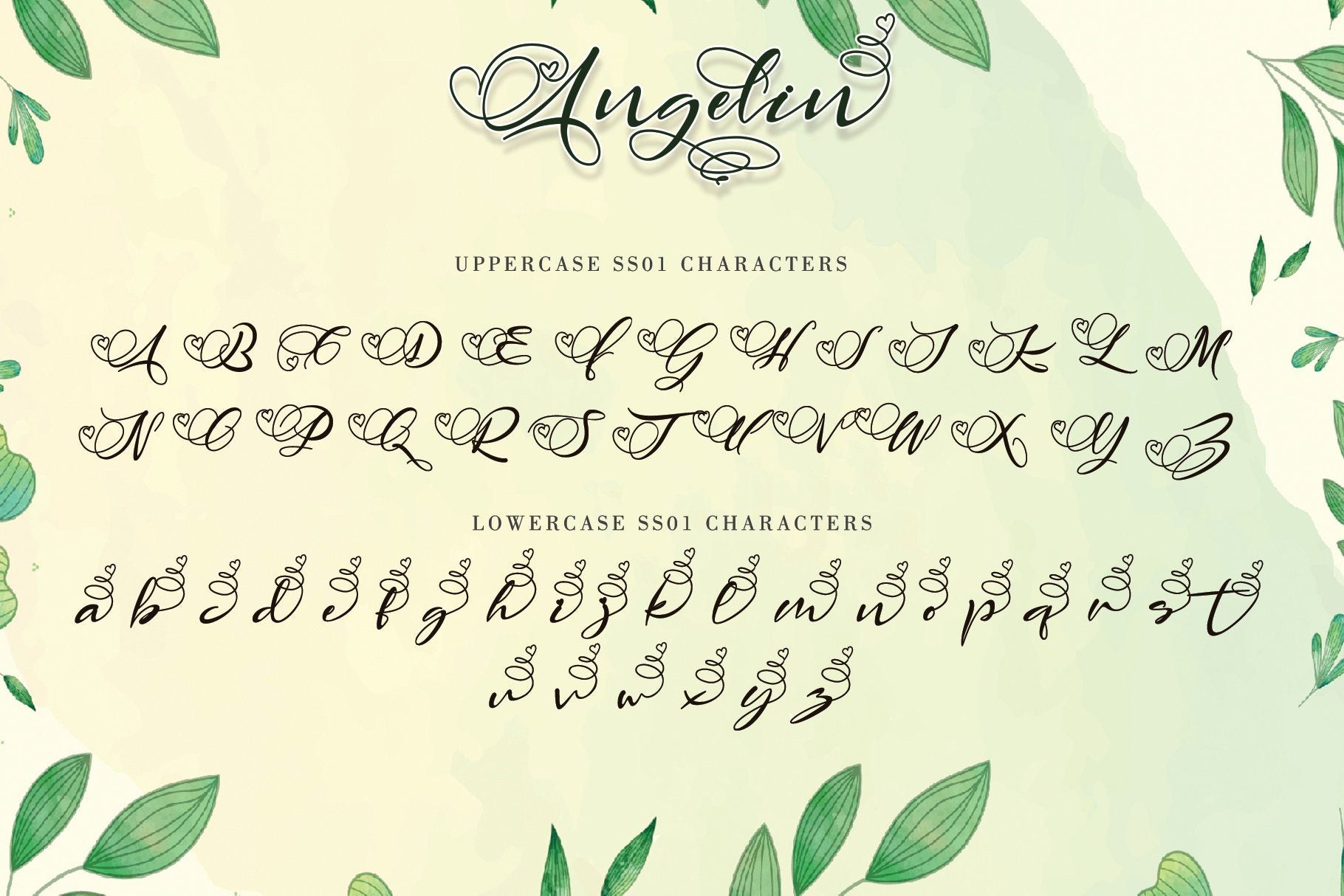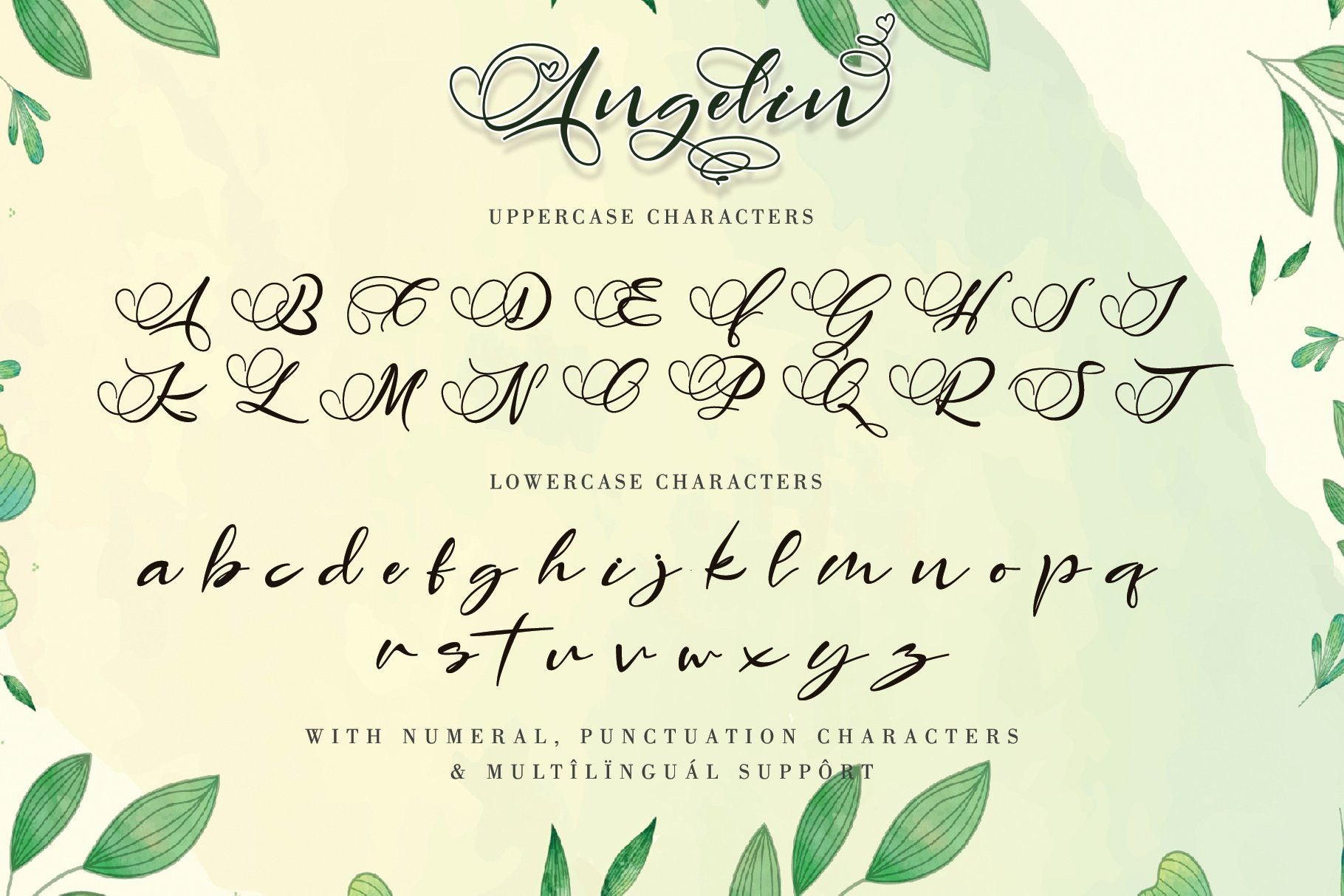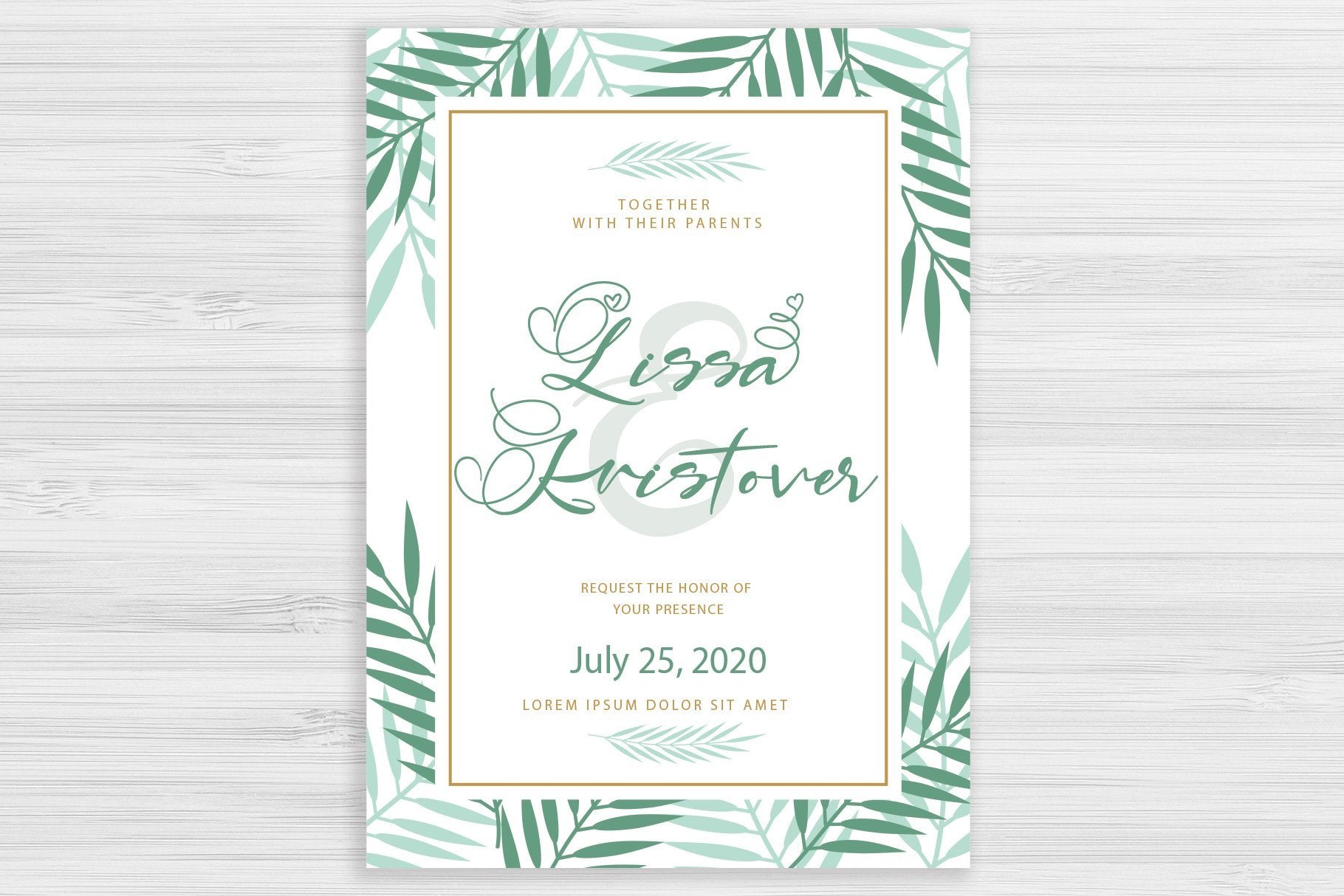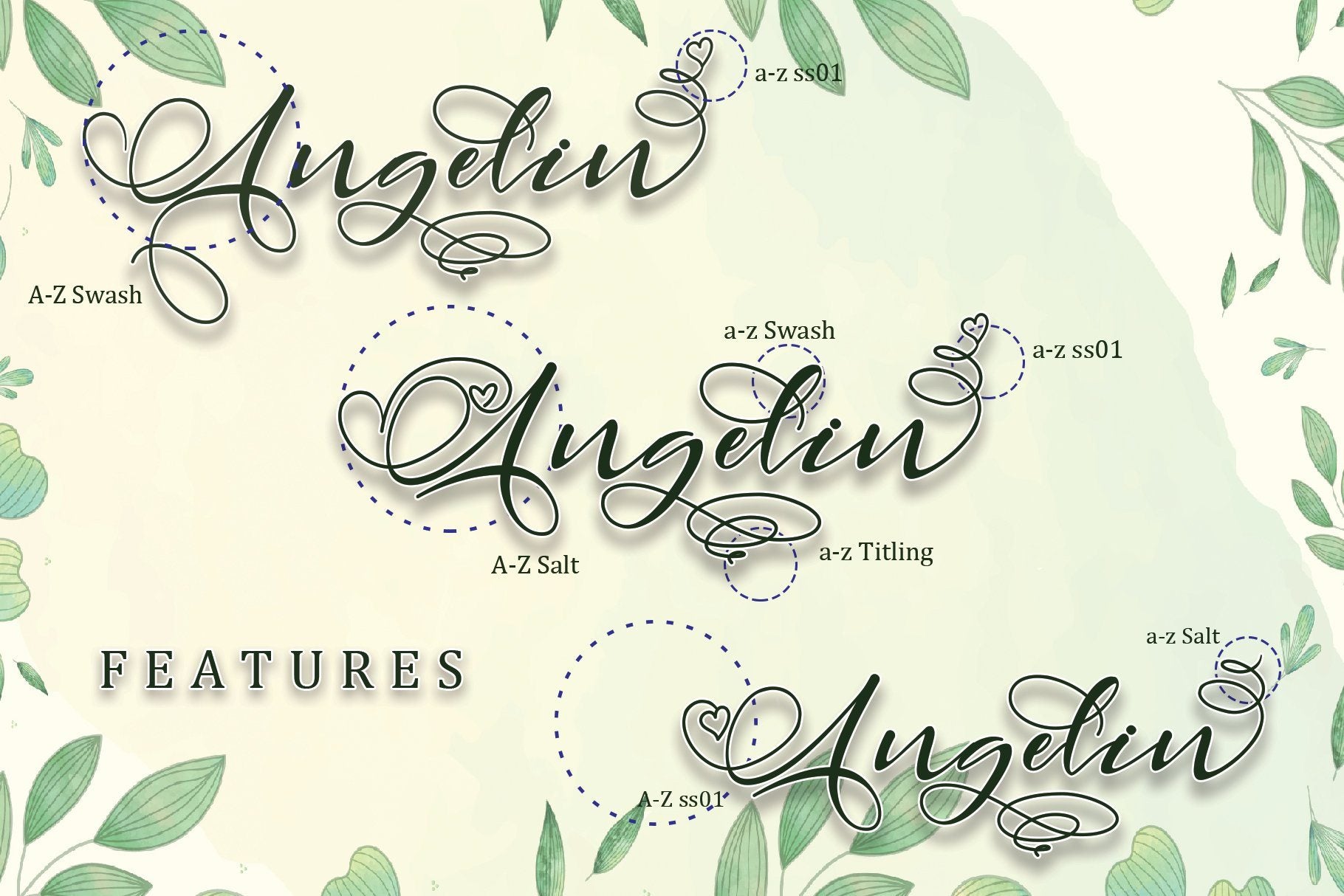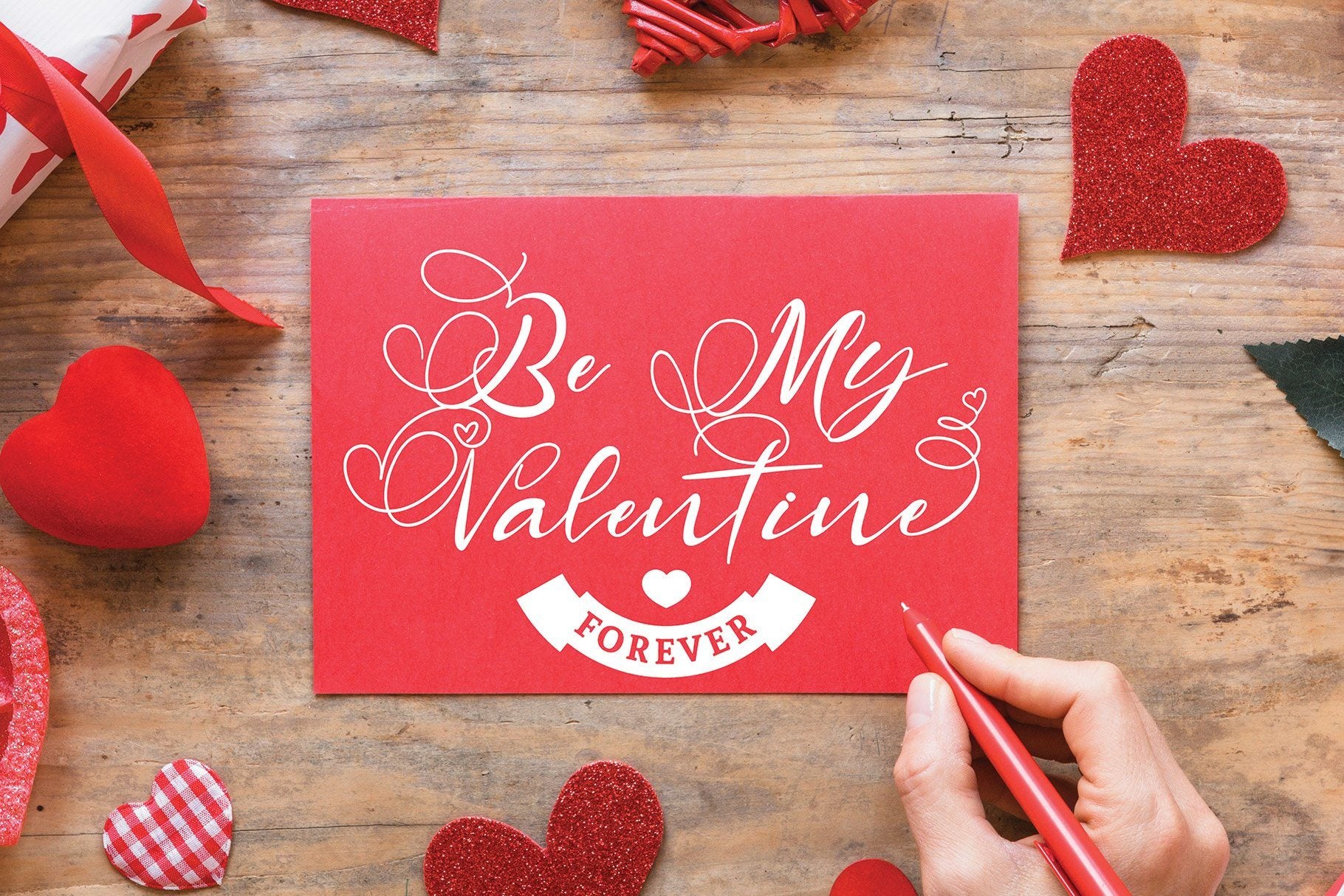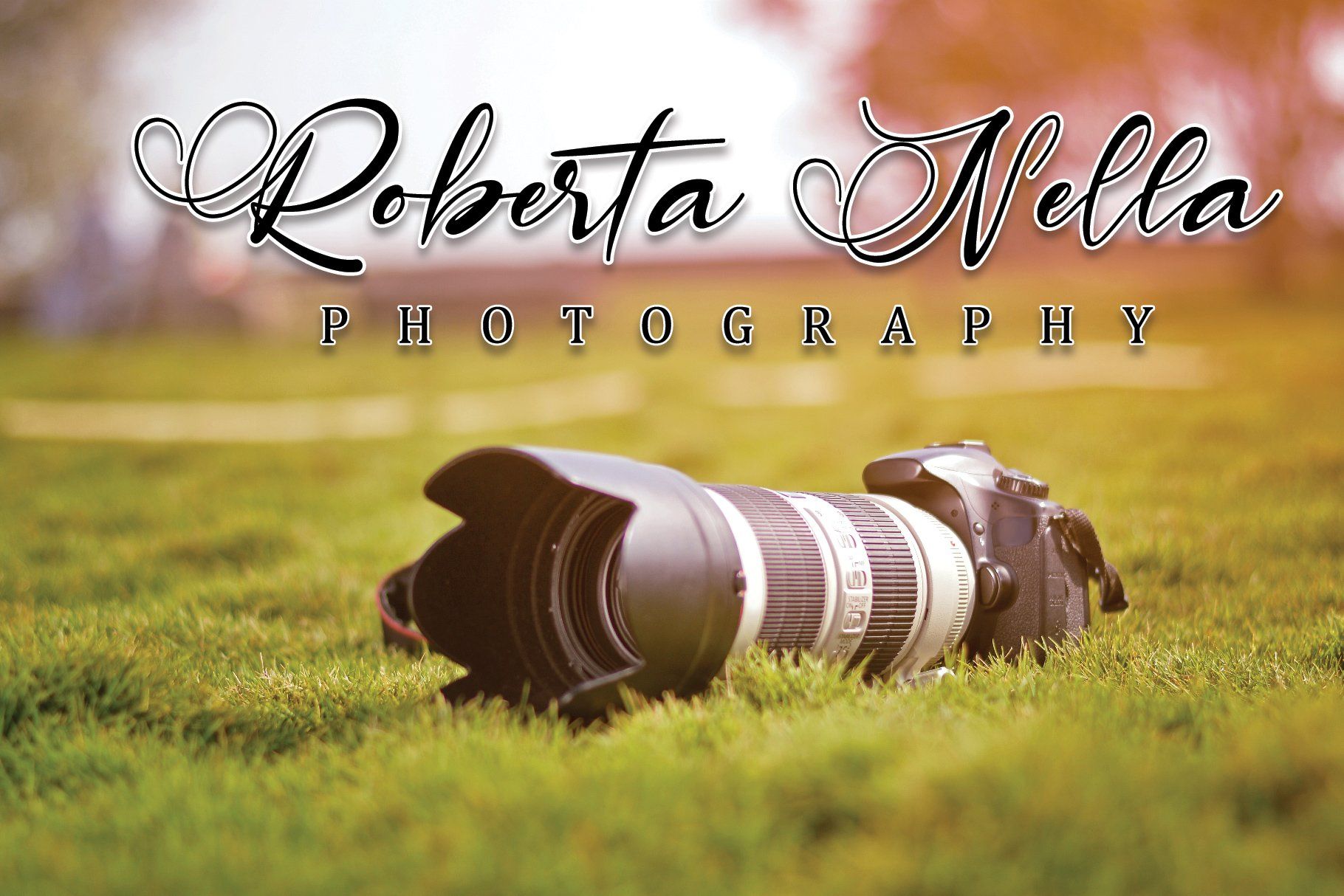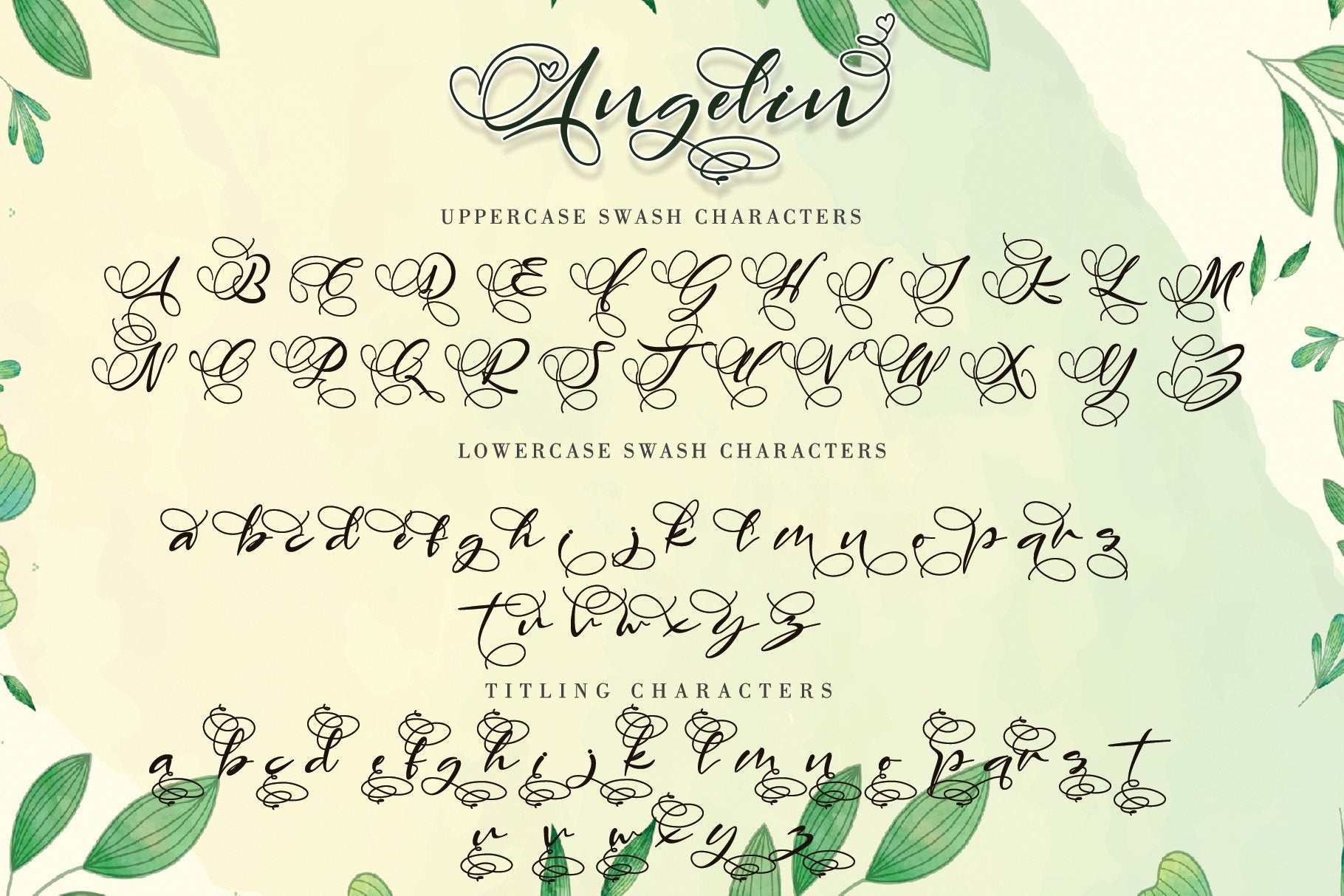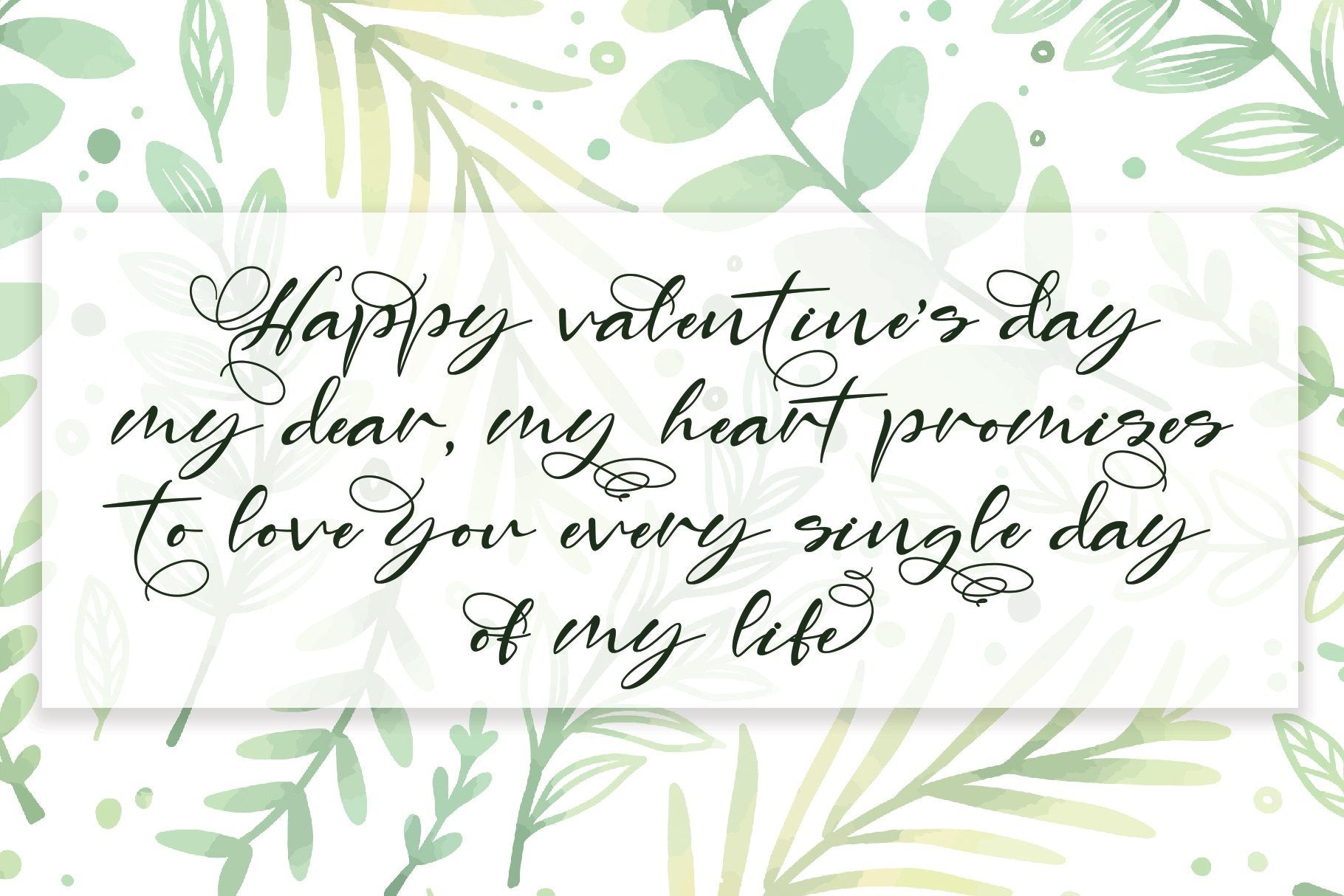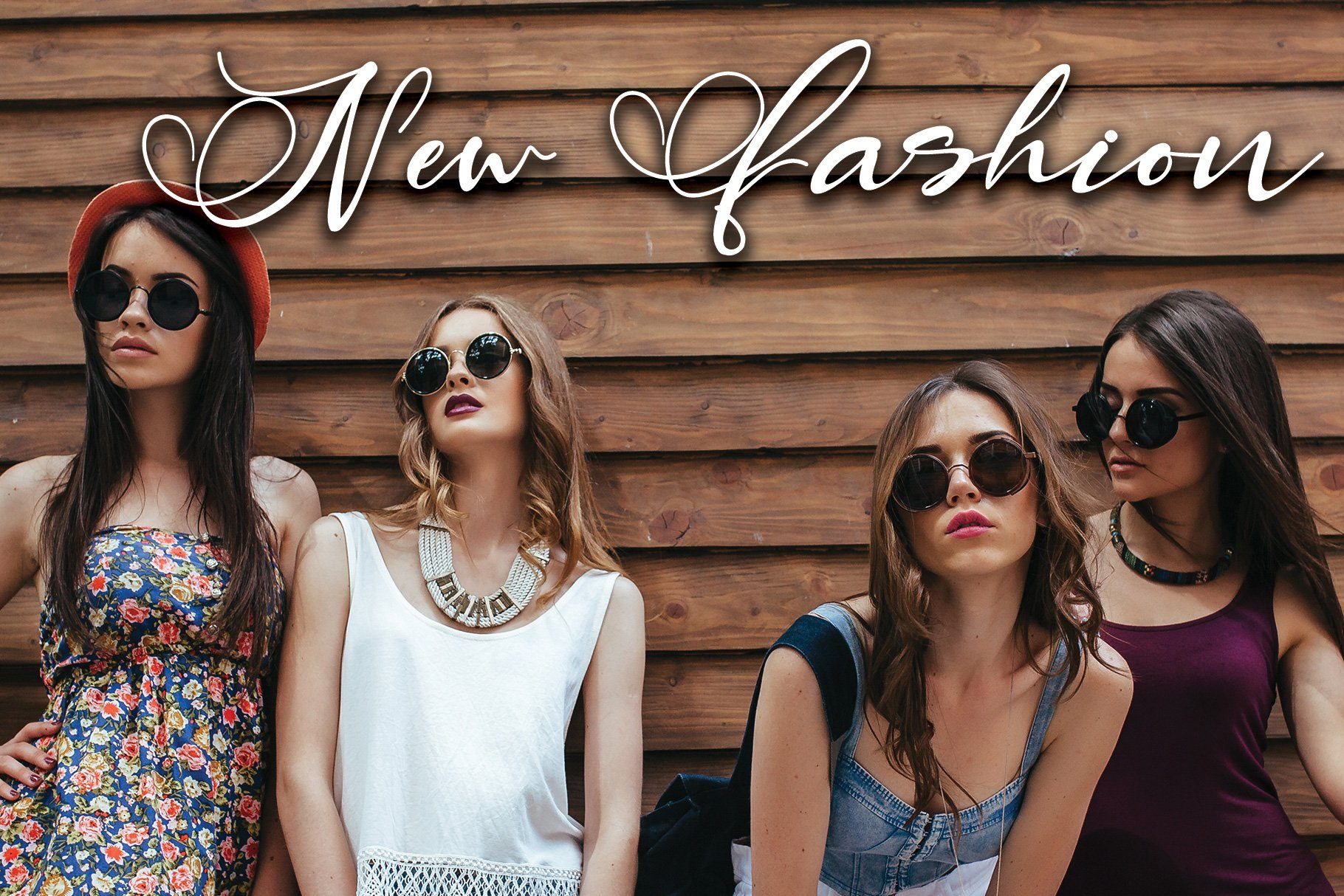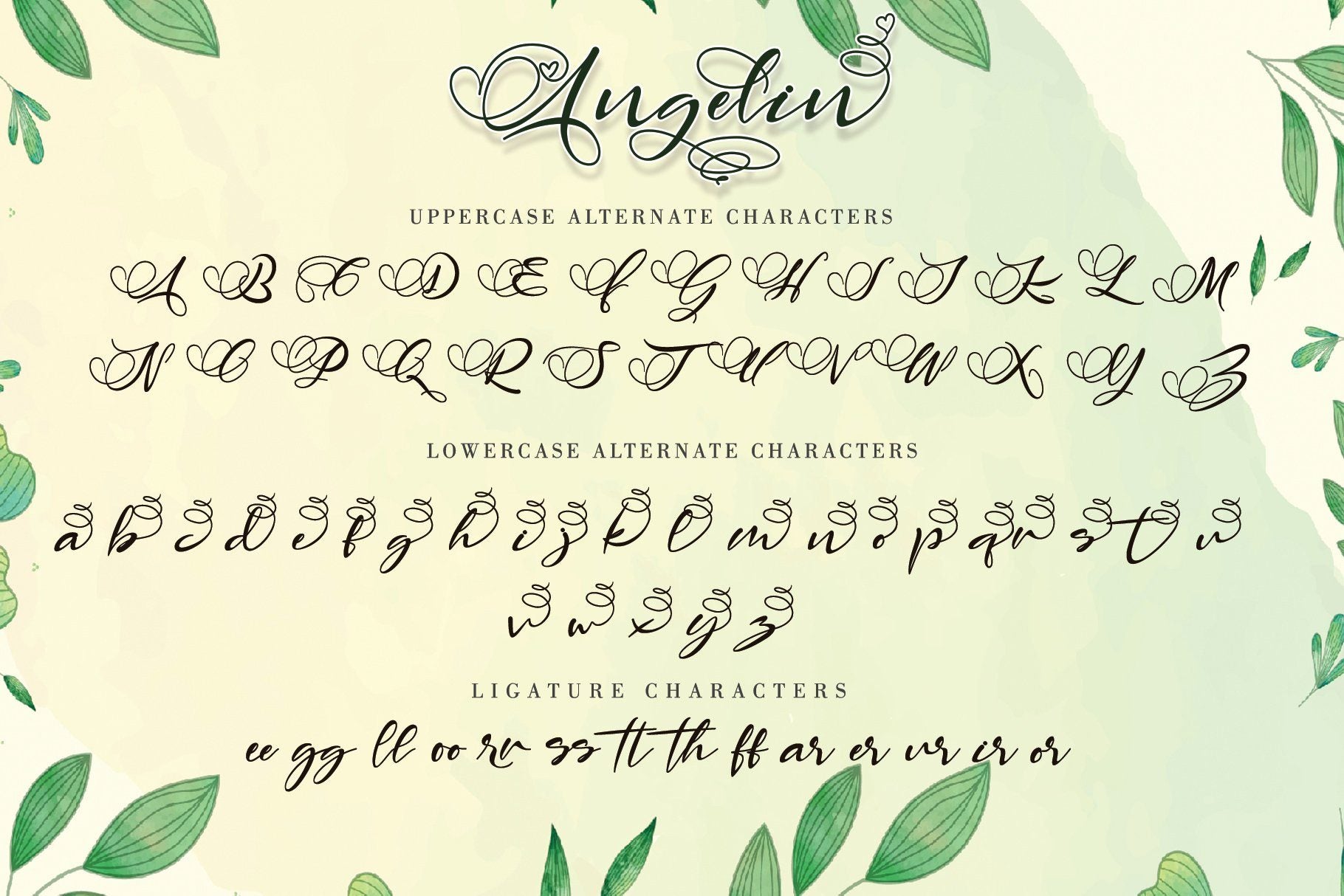
Angelin
About Angelin
Angelin is a gorgeous script font, beautiful and romantic.  This font looks perfect for Valentine’s Day designs, or for other romantically inclined styles and projects. Angelin (TTF, OTF, WOFF) The style in this font includes: Regular & Italic Works both on Mac & PC Simple installations Many features: (A-Z, a-z) Alternate, (A-Z, a-z)  Swash, (a-z) titling, Ligature and (A-Z, a-z) ss01 Support Silhouette Accessible in the Adobe Illustrator, Adobe Photoshop, Adobe InDesign, CorelDraw, even work on Microsoft Word. Support multilingual; ä ö ü Ä Ö Ü ß ¿ ¡ To access the alternate glyphs, you need a program that supports OpenType features such as Adobe Illustrator CS, Adobe Photoshop CC, Adobe Indesign, and CorelDraw. More information about how to access alternate glyphs, check out this link  ( http://goo.gl/ZT7PqK ) Support silhouette To stay up to date for my latest job, follow me and let’s be friends because there will be many promos. Our other products : BEST SELLER REINDEER SNOWKY BRUSH GAMOS HERTINA JENNIE ANTIKA AURORA BLACK PINK SIGNATURE California Street BESTOWENS FAMILY